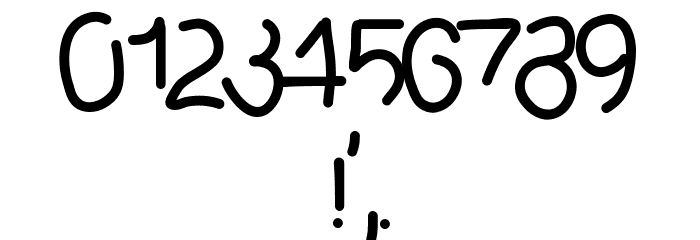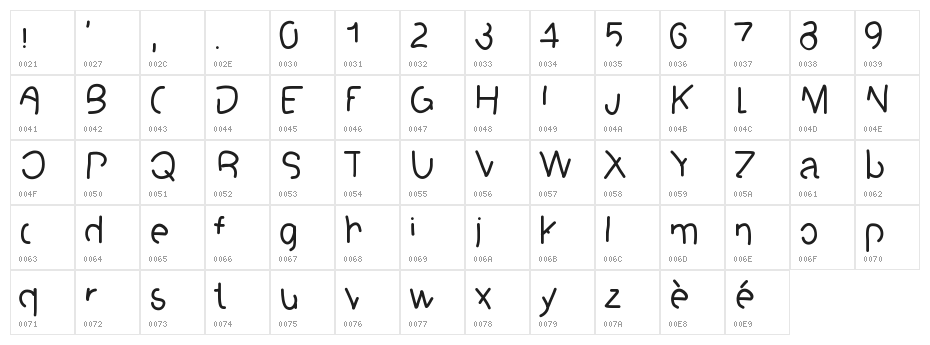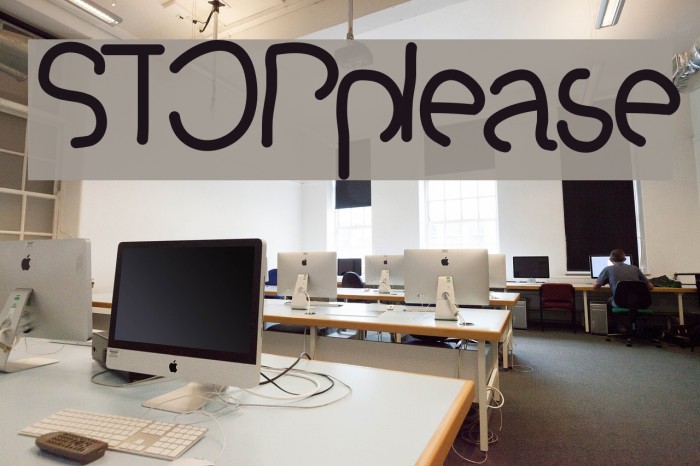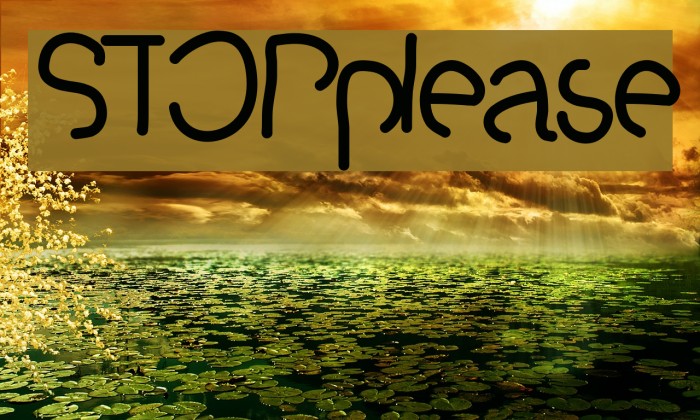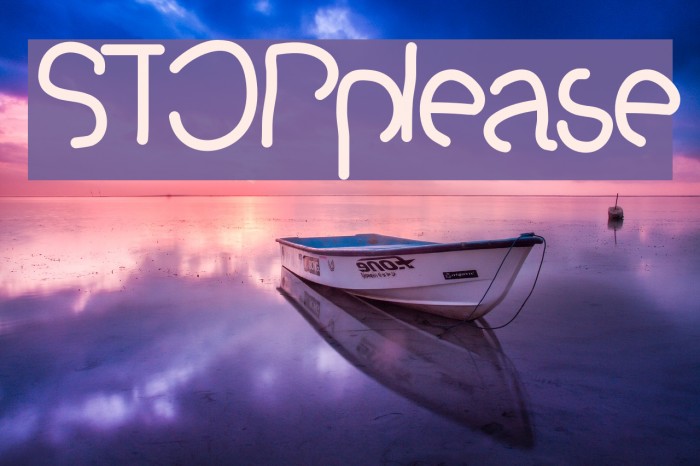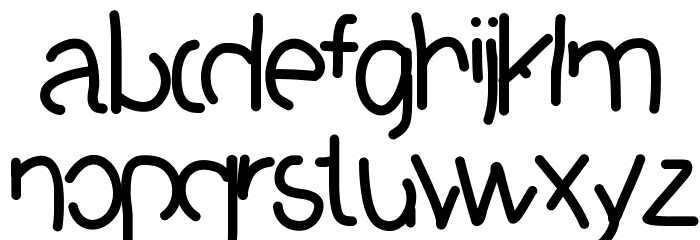
STOPplease Font
This playful and whimsical font features a handwritten style with rounded edges and a casual, friendly appearance. The characters are slightly irregular, giving it a unique and personal touch. The uppercase and lowercase letters maintain a consistent flow, while the numbers and special characters complement the overall design. The font's informal nature makes it suitable for creative projects that require a touch of personality and charm.
Overall StyleCasual, Playful
Use CaseHeadlines, Informal text, Creative projects
Proposed ProjectsIdeal for children's books, greeting cards, playful branding, and casual invitations.